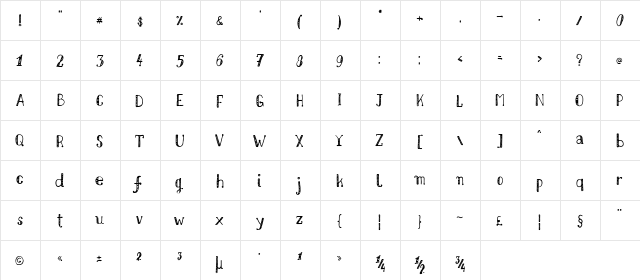
NikolaidisHand Regular
Design Context for NikolaidisHand Typeface
NikolaidisHand flows with the natural rhythm of handwritten lettering, making it ideal for designs that call for warmth and personal expression.
Font Pairing: Combine NikolaidisHand with a simple geometric sans for maximum contrast — the tension between flowing curves and clean structure is a classic typographic pairing.
Pro Tip: Pair NikolaidisHand with a clean sans-serif for supporting text. The contrast between fluid script and geometric structure creates an elegant typographic hierarchy.